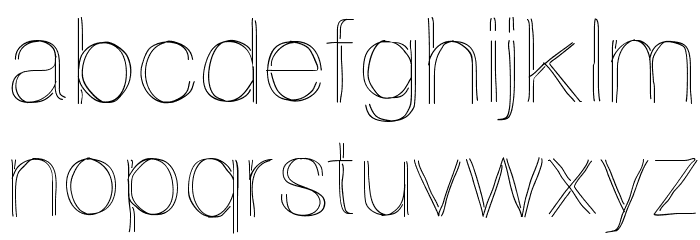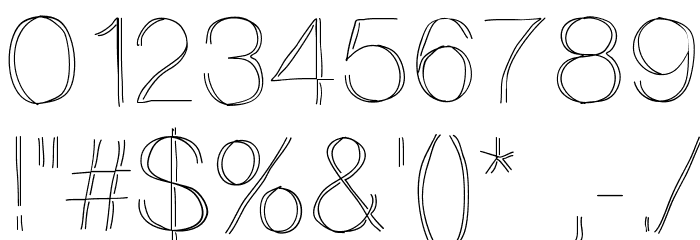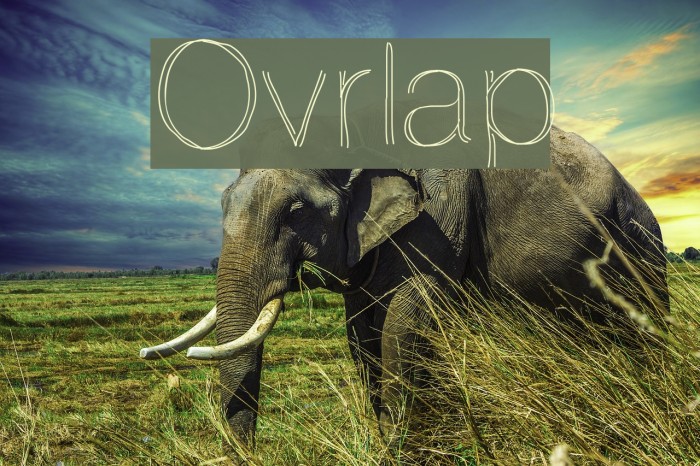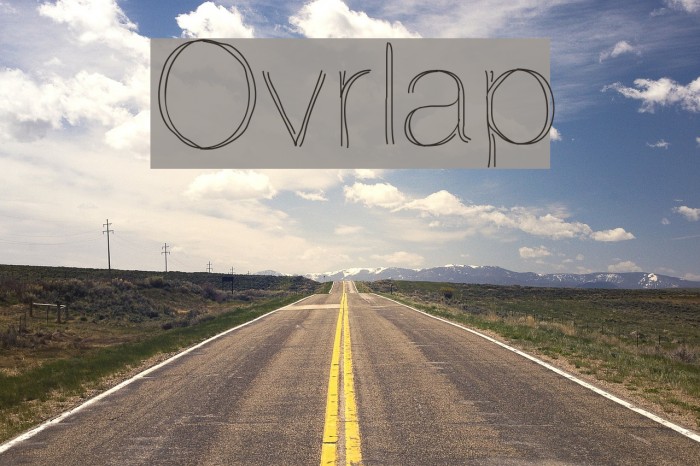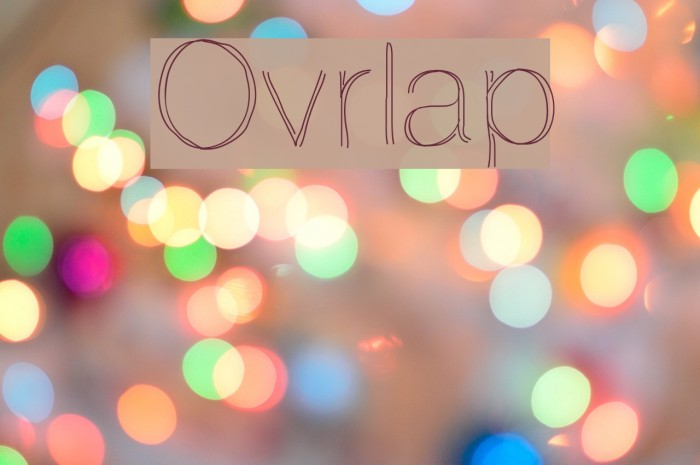
Ovrlap Font
This font features a unique overlapping line style that creates a sense of movement and fluidity. The characters are composed of multiple intersecting strokes, giving them a dynamic and artistic appearance. The uppercase and lowercase letters maintain a consistent height, while the numerals and special characters follow the same design principles. This font's distinct style makes it stand out, offering a modern and creative look suitable for various design projects.
A dynamic font with overlapping lines creating a fluid and artistic appearance.
- Proposed Projects: Ideal for creative branding, artistic posters, modern logos, and unique packaging designs.
- Use Case: Logos, Posters, Branding